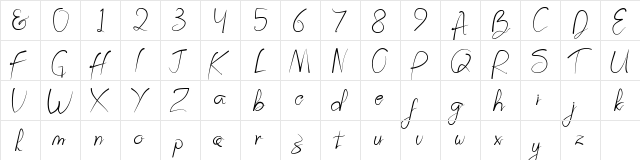
Prestigious Olives Regular
| Designer | doliharahap 2019 |
Design Context for Prestigious Olives Typeface
Prestigious Olives is a composed and adaptable typeface that performs quietly and consistently across a wide range of design contexts.